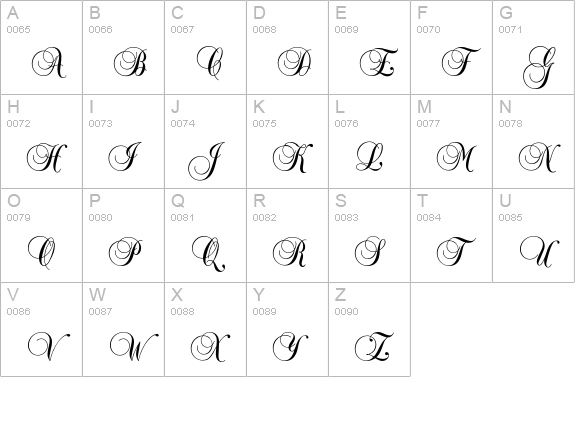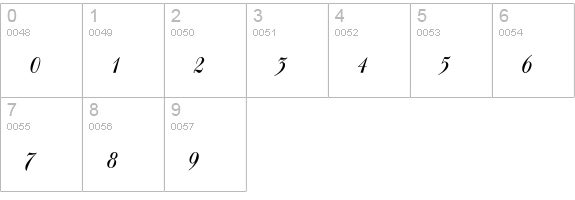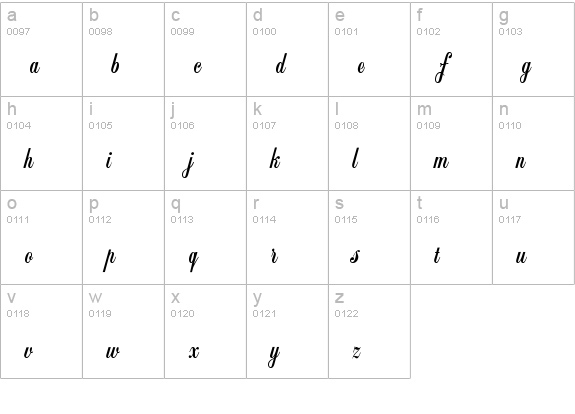
Dubarry Font Details
Dubarry font is a stunning and elegant typeface that exudes sophistication and style. With its graceful curves and modern appeal, Dubarry is perfect for adding a touch of class to any design project. This versatile font is suitable for a wide range of applications, from branding to editorial design. What makes Dubarry font even more appealing is that it is available for free download at FontsMarket.com. This means that you can easily access this beautiful typeface and enhance your creative projects without any cost. Don't miss out on the opportunity to add Dubarry font to your font collection today!